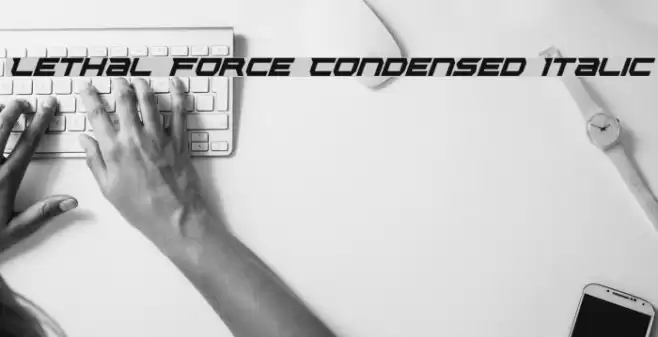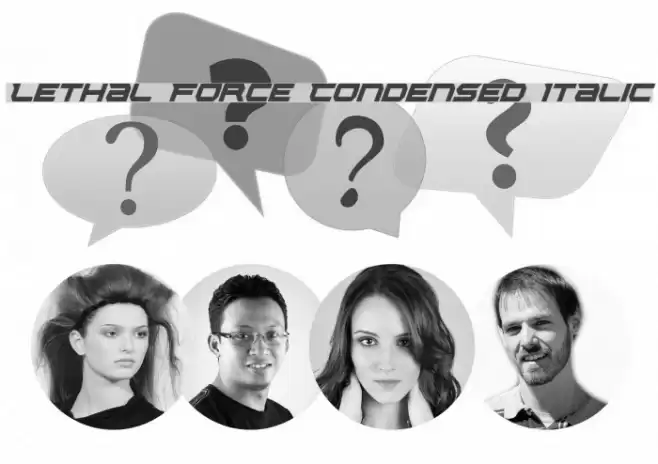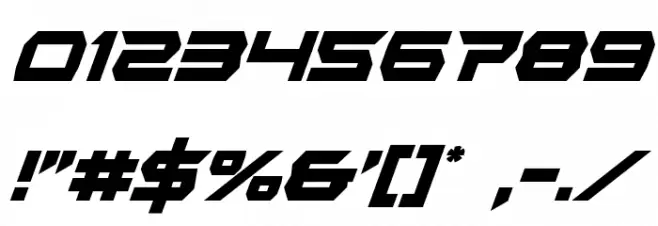
Lethal Force Condensed Italic Font
Lethal Force Condensed Italic Description
This font features a bold, angular design with a futuristic and aggressive aesthetic. The characters are sharply defined with a condensed width, giving it a compact and efficient appearance. The italic slant adds a dynamic and forward-moving feel, enhancing its modern and edgy style. The strokes are consistent in weight, providing a uniform look across all characters. This font is highly legible, even at smaller sizes, due to its clear and distinct letterforms. The overall design is sleek and powerful, making it suitable for projects that require a strong visual impact.
A bold, angular, and condensed italic font with a futuristic and aggressive style from Uncategorized fonts.
- Proposed Projects: Ideal for use in video game titles, movie posters, sports branding, and tech-related logos.